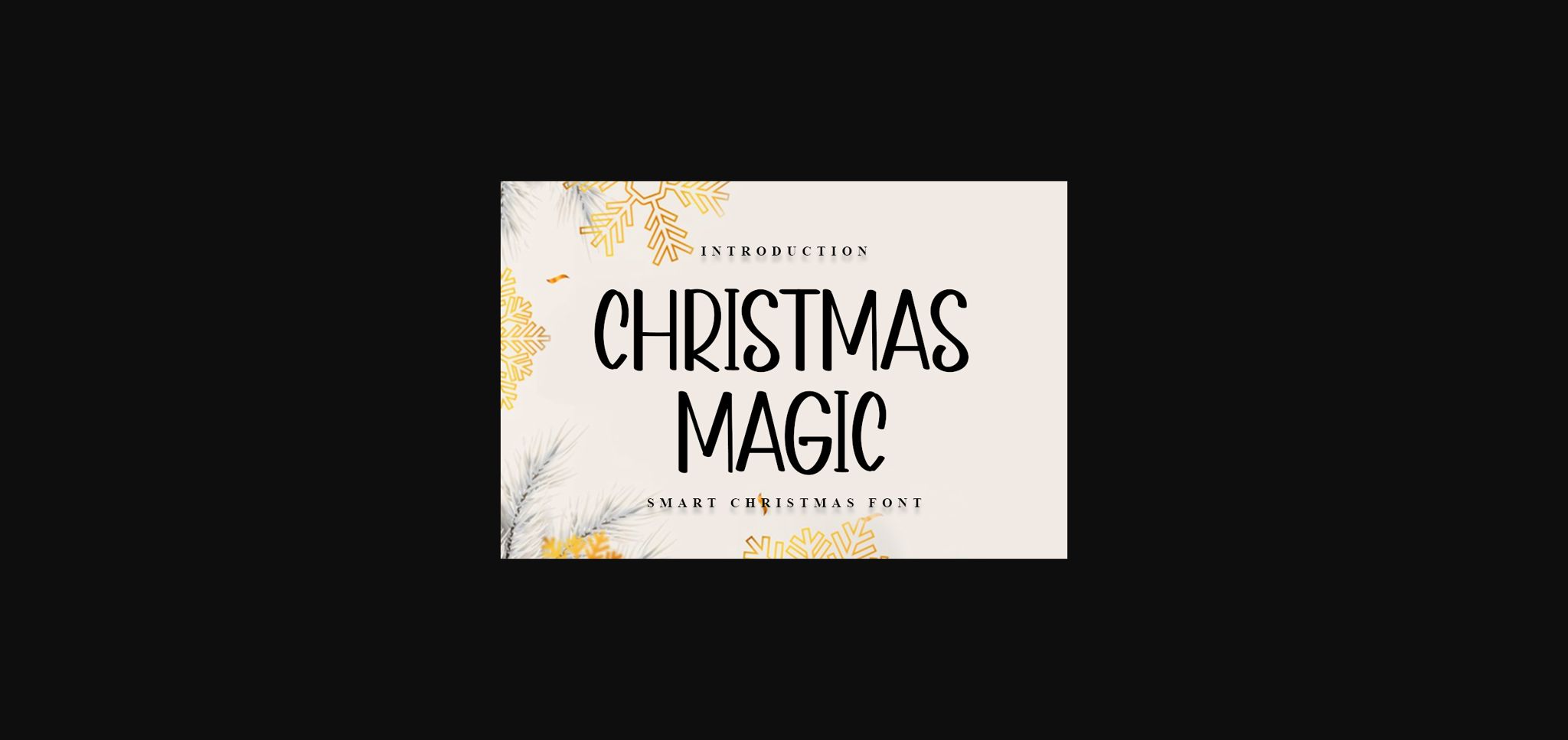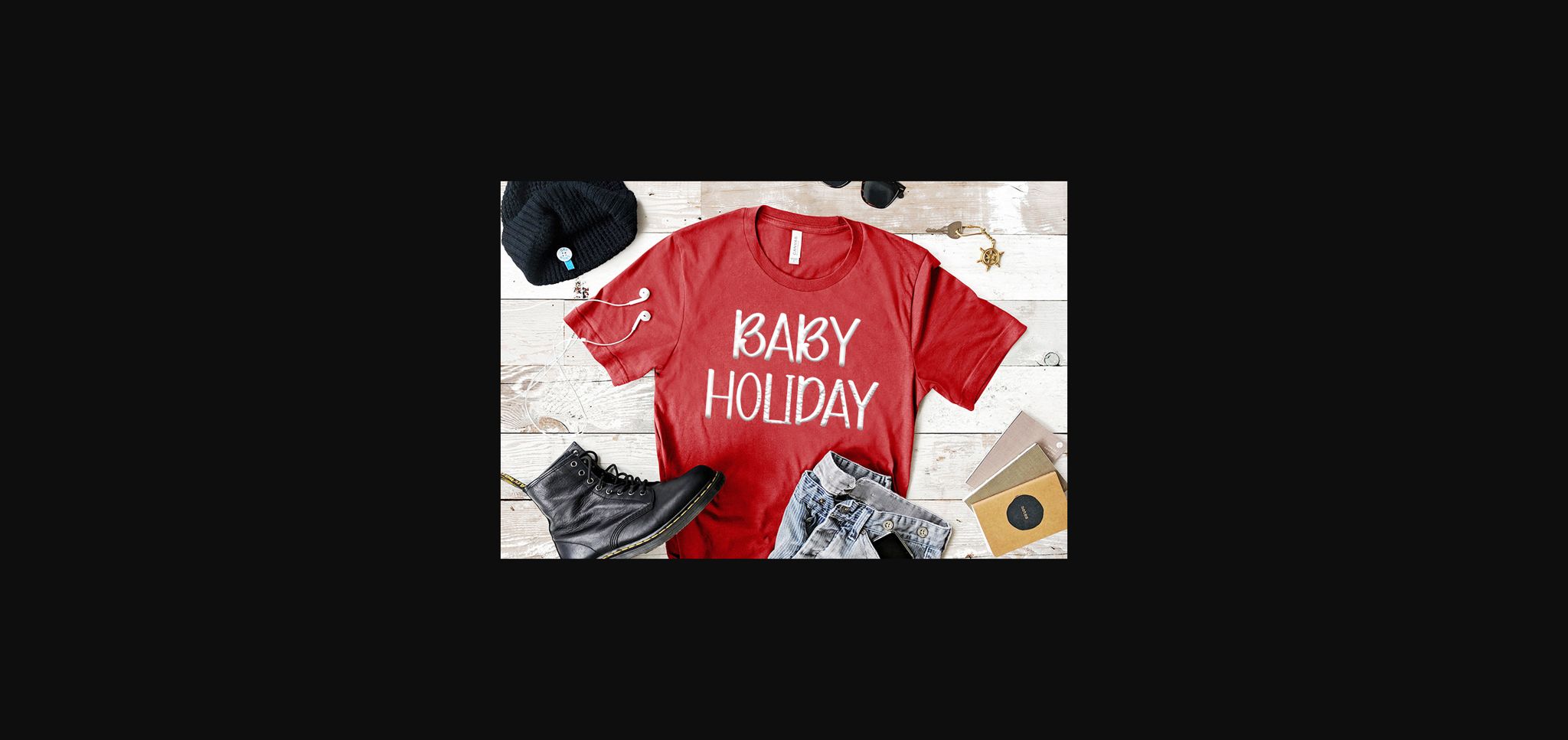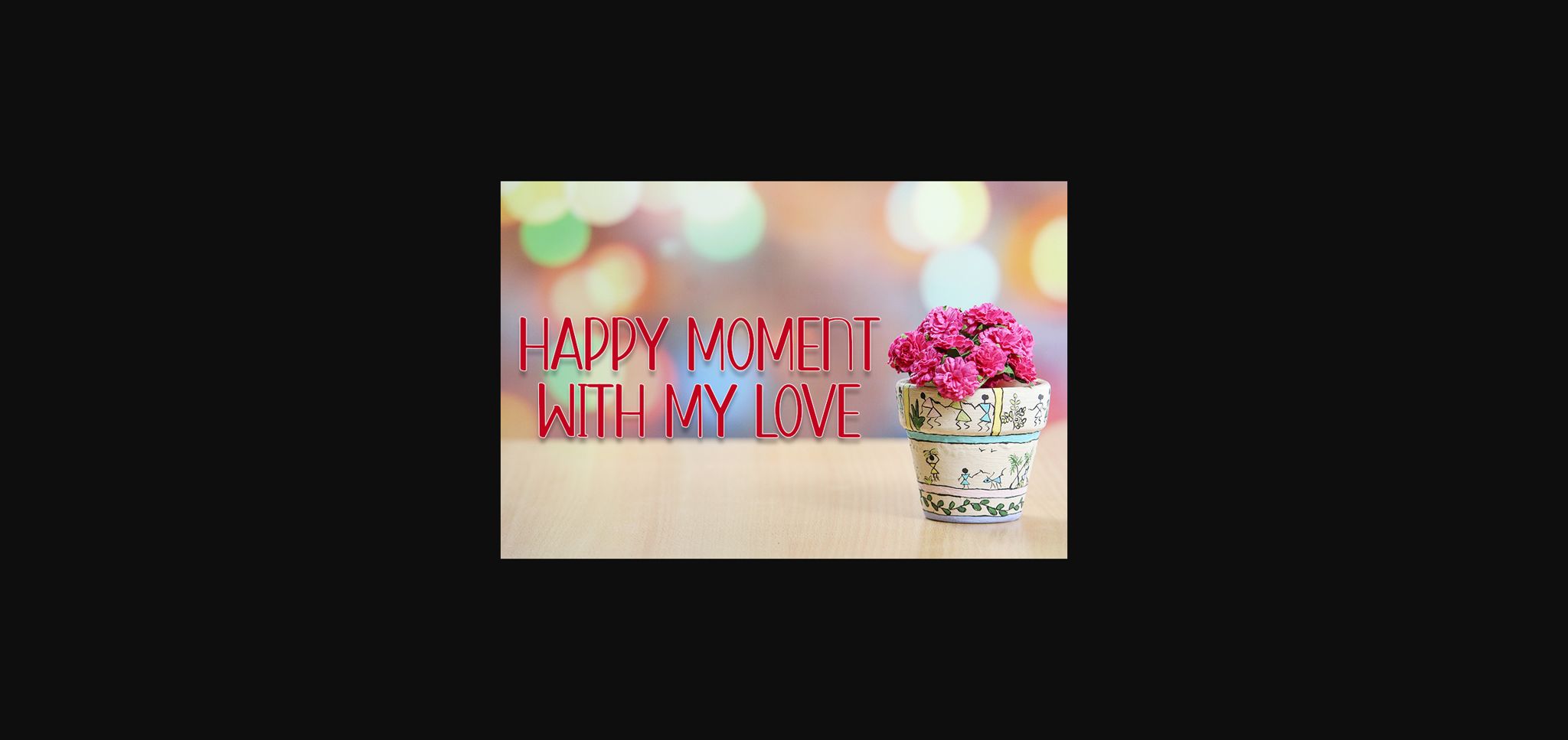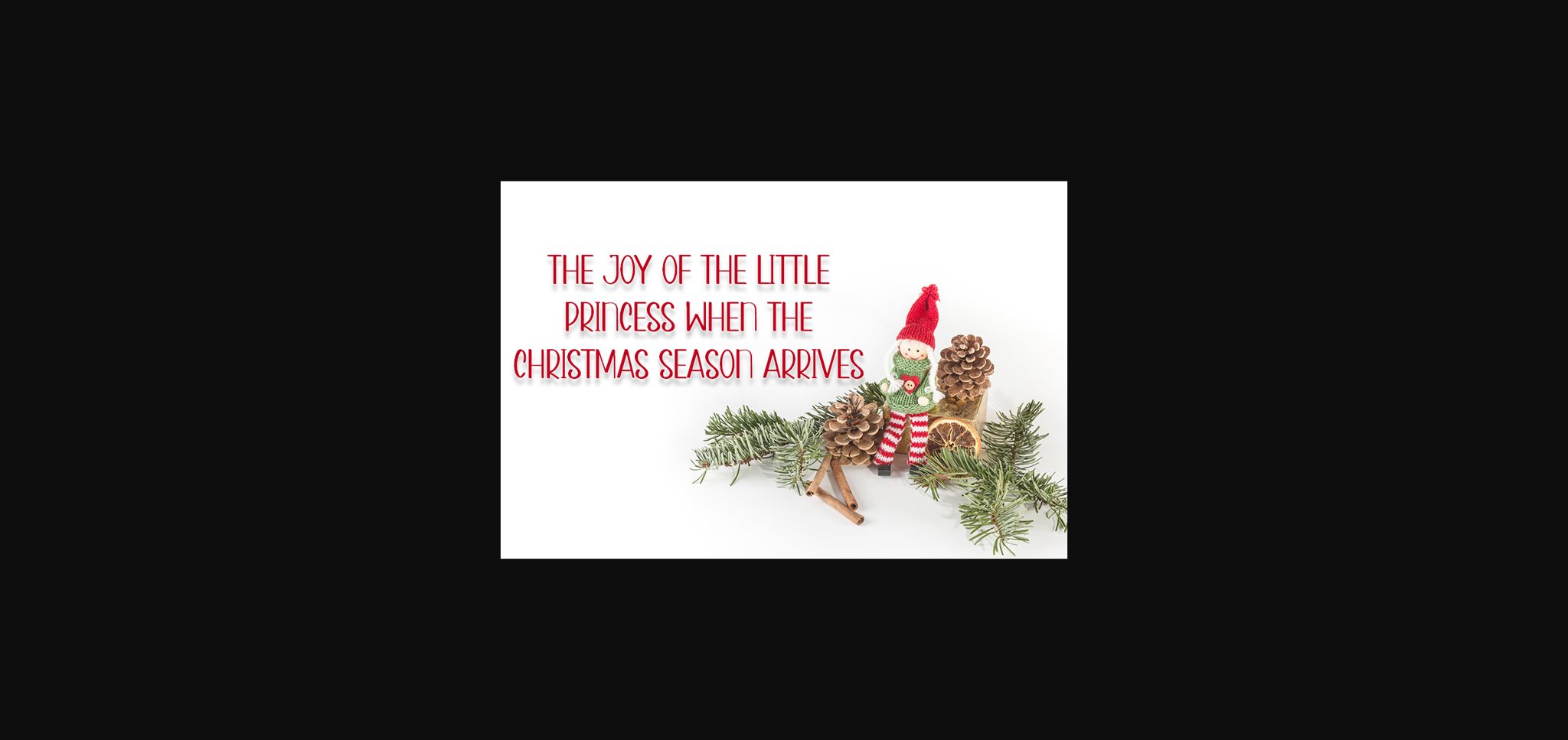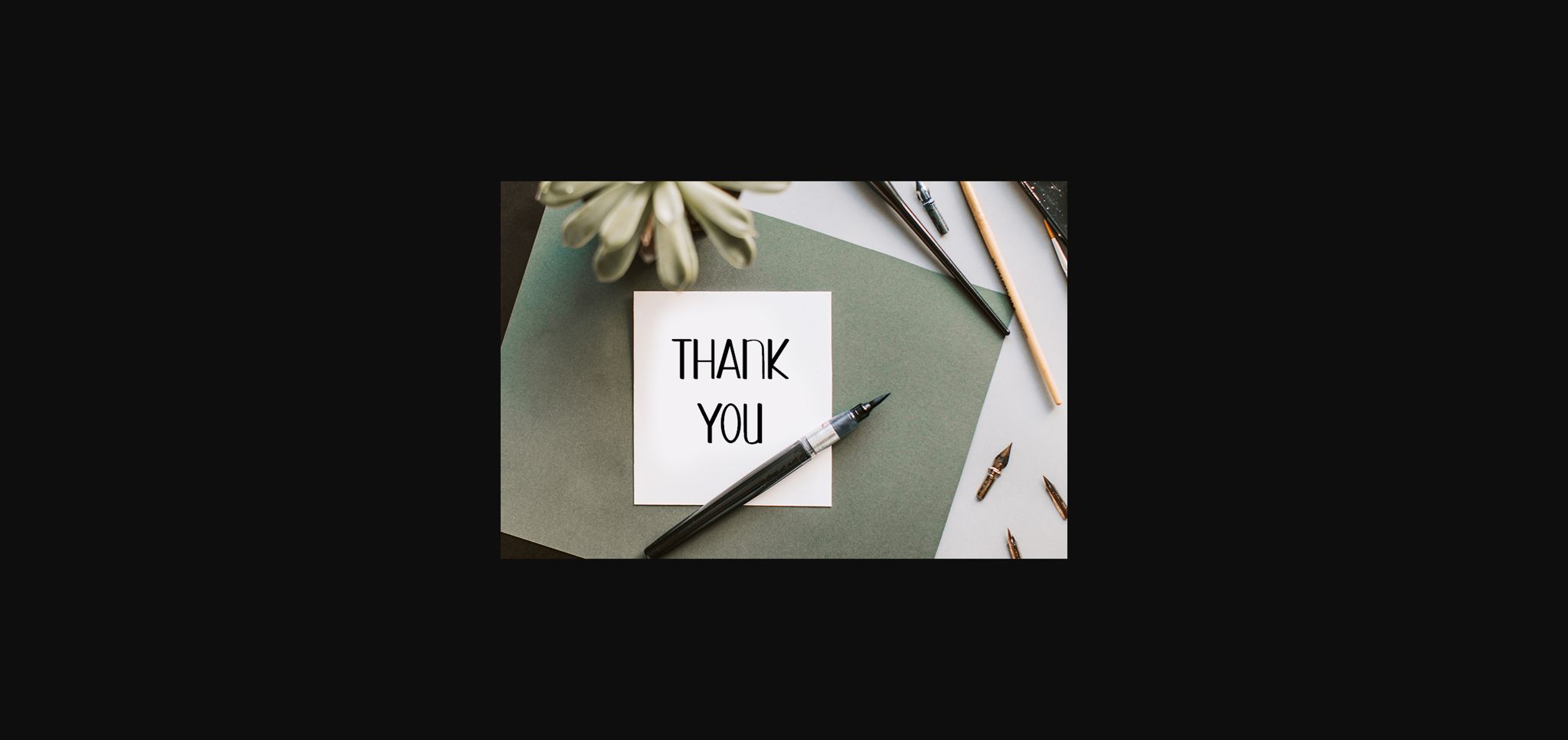
About Christmas Magic Font
Christmas Magic is a simple, cute and elegant sans serif font. Add this bold and incredibly versatile font to each of your creative holiday designs, and notice how they level up.